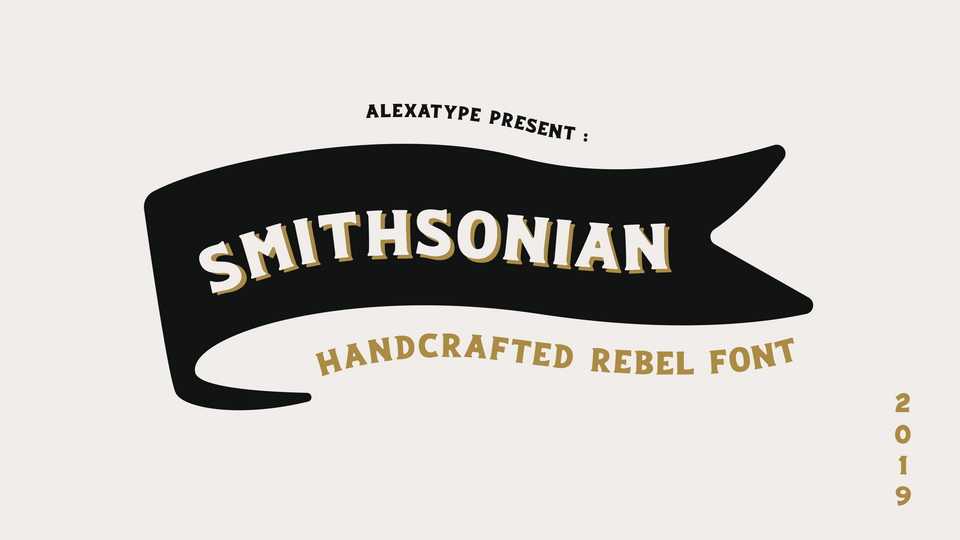
Download Smithsonian font, a vintage display typeface to create a handcrafted effect. Smithsonian font works perfectly as a title, headlines and logotype.
Designer: Alexatype